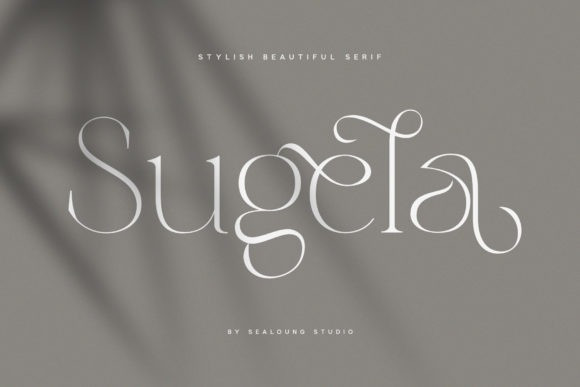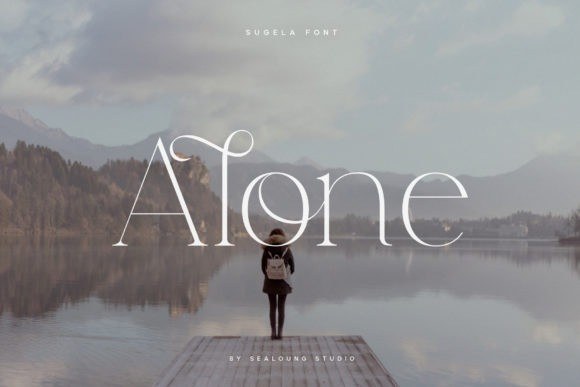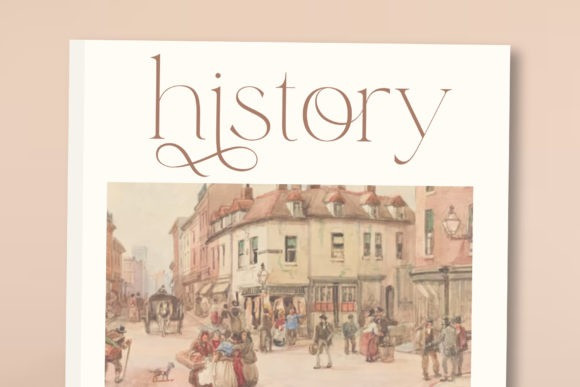
Sugela Font
Sugela is a Classy New Beautiful Serif Font
The serifs that we made specifically for the needs of elegant branding, with additional ligatures and alternates in a more feminine and unique form will be ready to add value to your brand. It’s great to take advantage of designers or product owners who need a solution to make their designs look more classy and modern.
This font is specially designed for fashion-themed projects, perfectly suitable for creating elegant, chic, lifestyle designs such as logos, titles, magazines, and more.